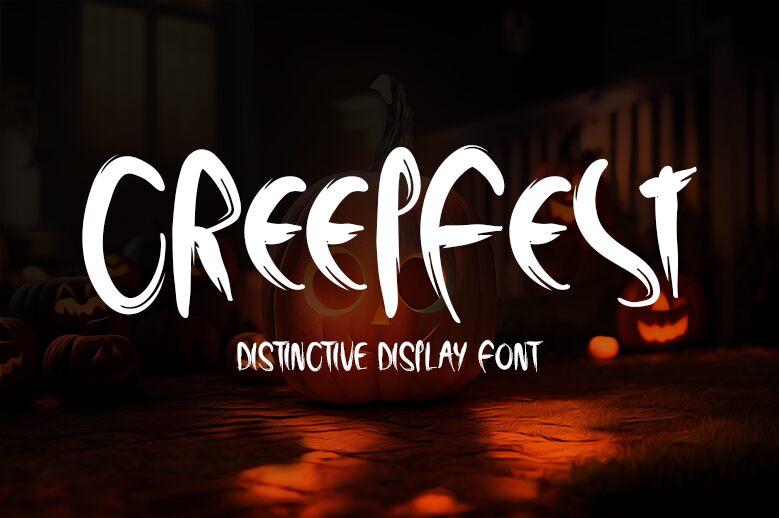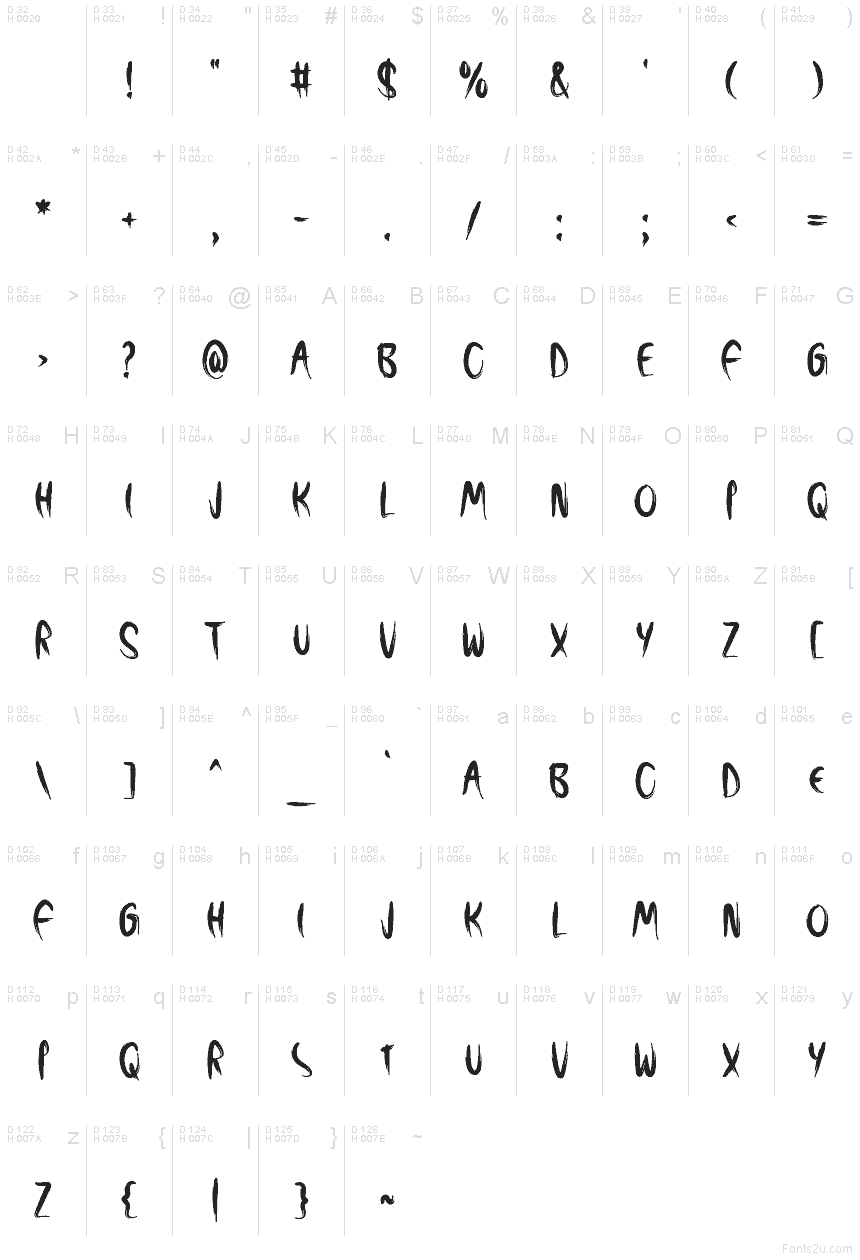
Creepfest
Creepfest font by Md Shohail Bhuian is a free brush horror display font. Each letter looks swiped on with a wet, inky brush—tall, tapering strokes that flare into claws and then snap to razor-thin ends. The rhythm is wild but readable, giving titles a jump-scare jolt while keeping lines cohesive and tight.
Using Creepfest, headlines lunge off the page for haunted house posters, Halloween party art, thriller book covers, slasher movie titles, escape room branding, and spooky merch. This free font shines on streaming overlays and event signage where a dramatic, hand-slashed vibe sells the scare. Pair it with a plain condensed sans for body copy, and let Creepfest run big to show off those scratchy swashes.